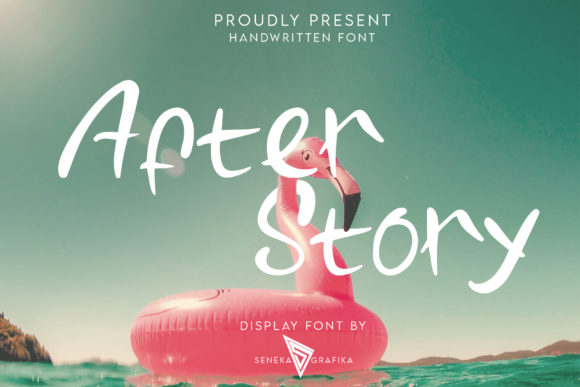
Introducing After Story Font: Elevate Your Designs with Elegance and Sophistication
In the world of typography, few fonts manage to capture the essence of elegance and modernity as effectively as After Story Font. This beautiful and refined script font has been making waves among designers and crafters, and for good reason. With its classy, elegant, and modern look, After Story Font is the perfect choice for a wide range of design projects, from logos and branding to invitations, stationery, wedding designs, social media posts, and much more.
The Characteristics of After Story Font
So, what sets After Story Font apart from other script fonts on the market? Here are just a few of its key characteristics:
- Elegant and Refined: After Story Font boasts a sophisticated and polished look that’s perfect for designs that require a touch of luxury and refinement.
- Modern and Fresh: Despite its classic script style, After Story Font has a distinctly modern feel that’s sure to make your designs stand out.
- Versatile: Whether you’re creating a logo, invitation, or social media post, After Story Font is the perfect choice for a wide range of design projects.
- Highly Readable: With its clear and flowing script, After Story Font is highly readable, even at smaller sizes.
Uses for After Story Font
After Story Font is an incredibly versatile font that can be used for a wide range of design projects. Here are just a few ideas to get you started:
- Logos and Branding: Create a lasting impression with a custom logo or branding materials that showcase your business’s personality and style.
- Invitations and Stationery: Add a touch of elegance to your invitations, greeting cards, and stationery with After Story Font.
- Wedding Designs: Make your wedding designs truly unforgettable with After Story Font’s beautiful and refined script.
- Social Media Posts: Elevate your social media presence with eye-catching posts that feature After Story Font.
- Packaging and Product Design: Add a touch of sophistication to your product packaging and design with After Story Font.
Tips for Using After Story Font
To get the most out of After Story Font, here are a few tips to keep in mind:
- Pair it with a Sans Serif Font: For a beautiful contrast, pair After Story Font with a clean and modern sans serif font.
- Experiment with Font Sizes: Don’t be afraid to experiment with different font sizes to create visual interest and hierarchy in your designs.
- Use it for Headlines and Titles: After Story Font is perfect for headlines and titles, where its elegant and refined script can really shine.
In conclusion, After Story Font is a beautiful and refined script font that’s perfect for designers and crafters looking to add a touch of elegance and sophistication to their designs. With its classy, elegant, and modern look, After Story Font is sure to become a staple in your font collection. So why wait? Download After Story Font today and start elevating your designs to new heights!
Whether you’re a seasoned designer or just starting out, After Story Font is an excellent choice for anyone looking to create stunning designs that showcase their creativity and style. So go ahead, get creative, and see what amazing designs you can create with After Story Font!